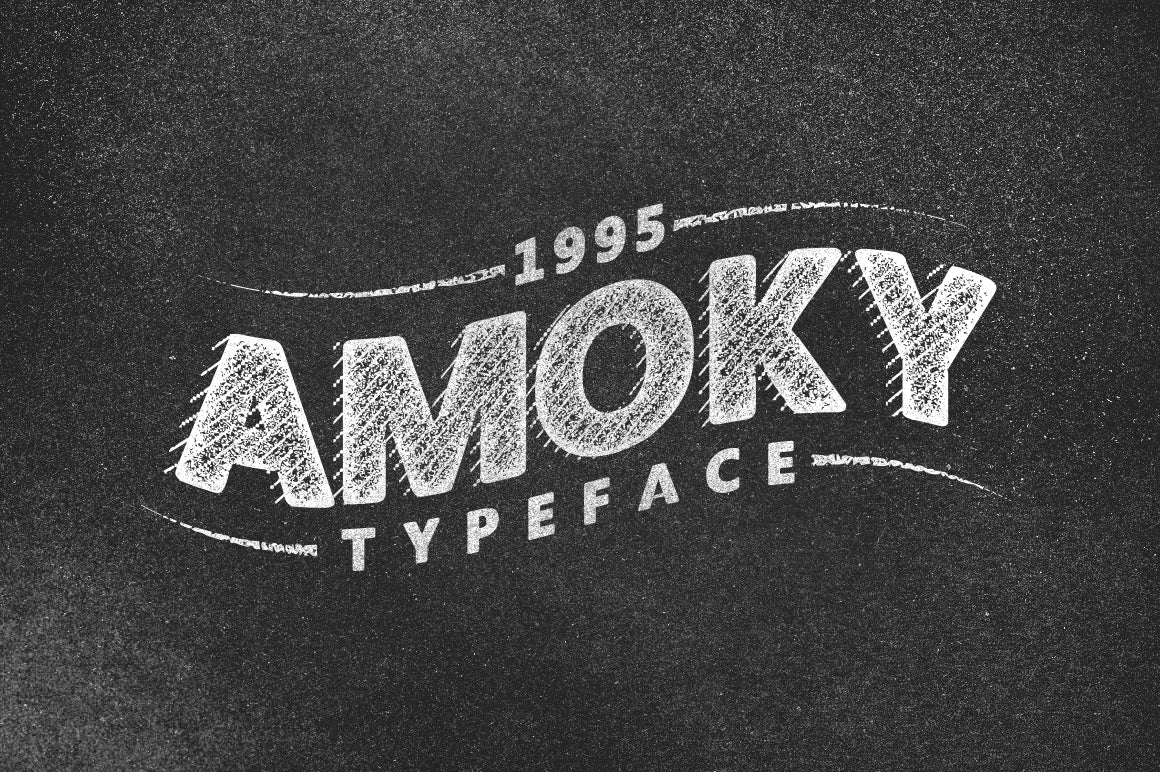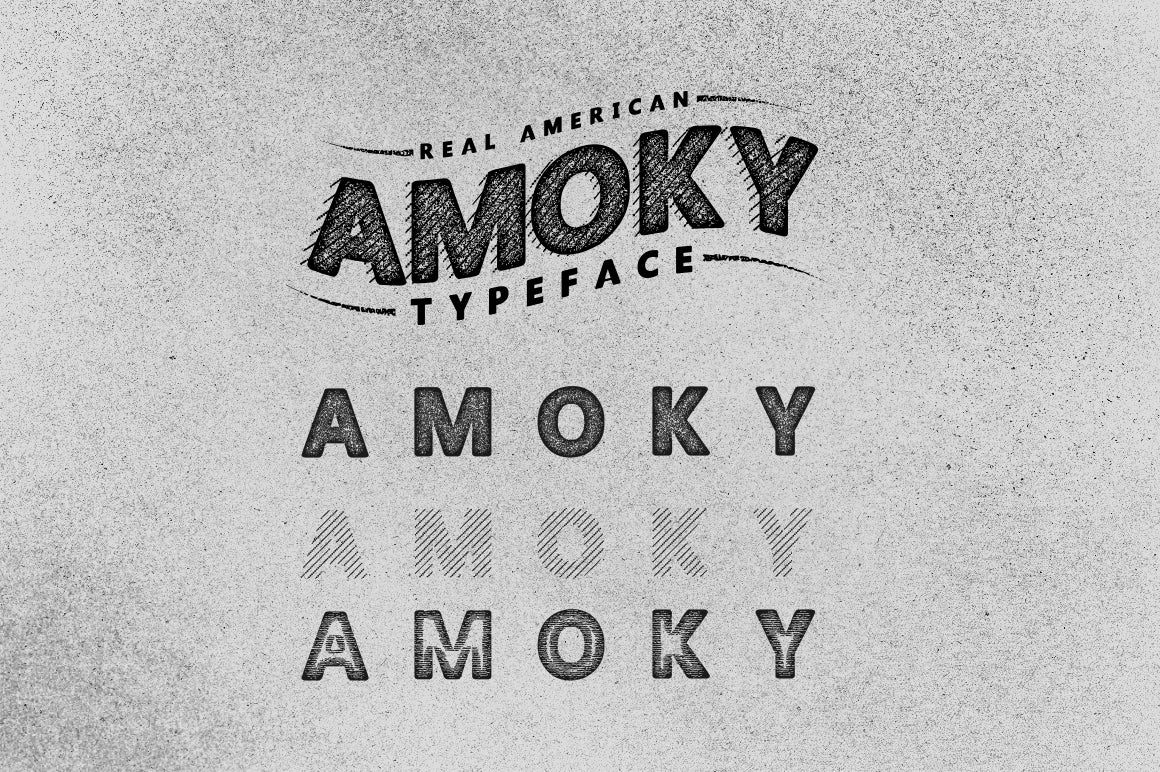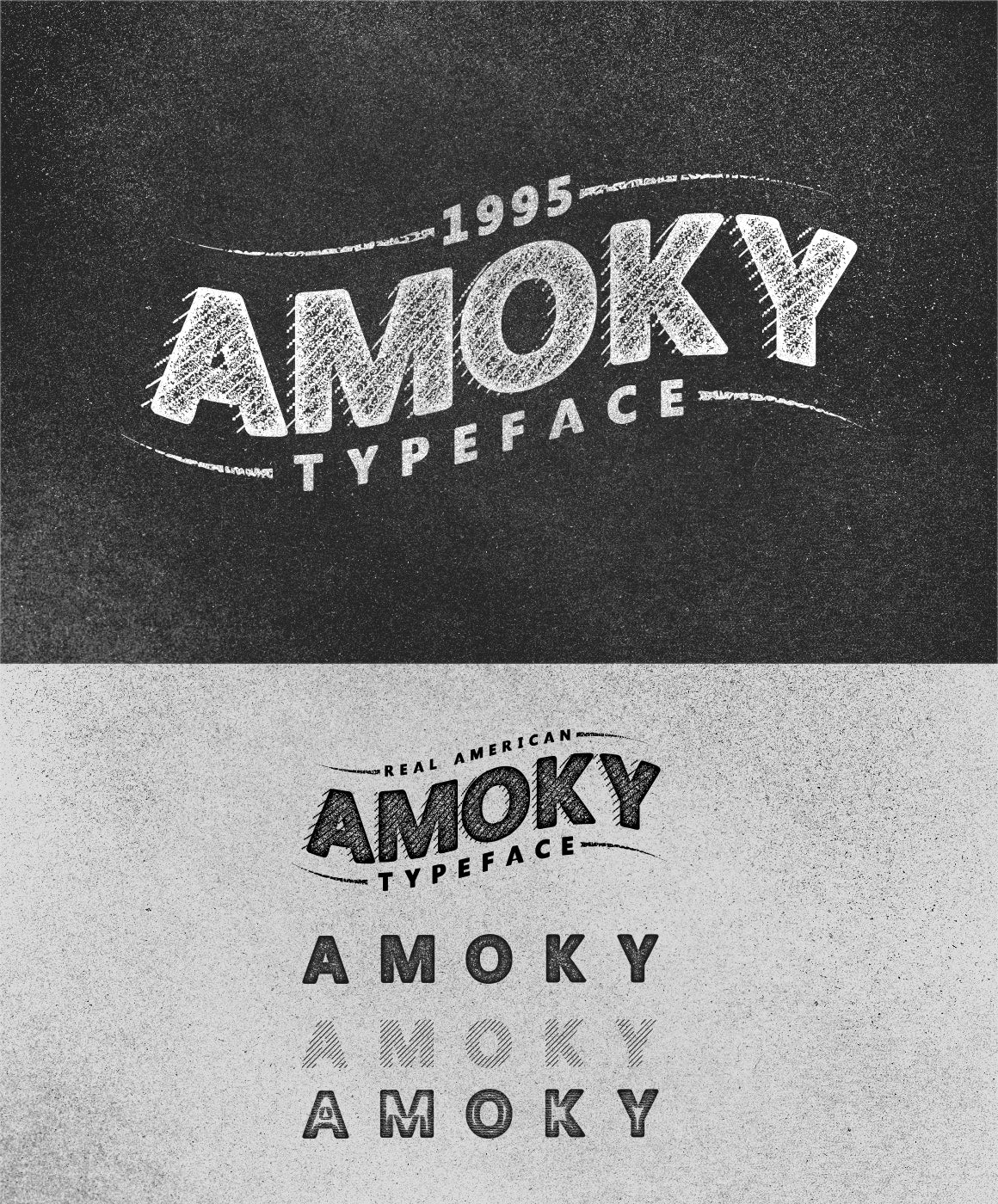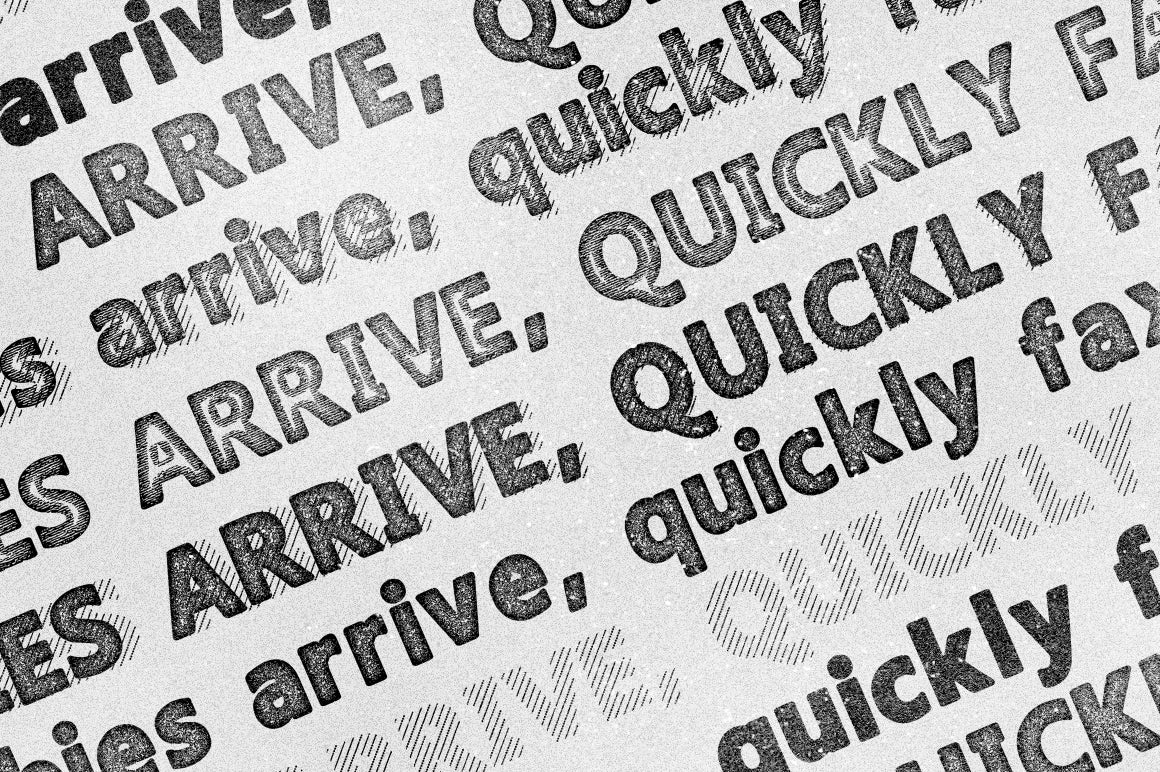
Amoky Typeface
Amoky Typeface - With this font you get 3 typefaces grunge style, lines shading style and stamped style typefaces.
This old school textured typeface is a great choice for vintage and retro design and creative projects.